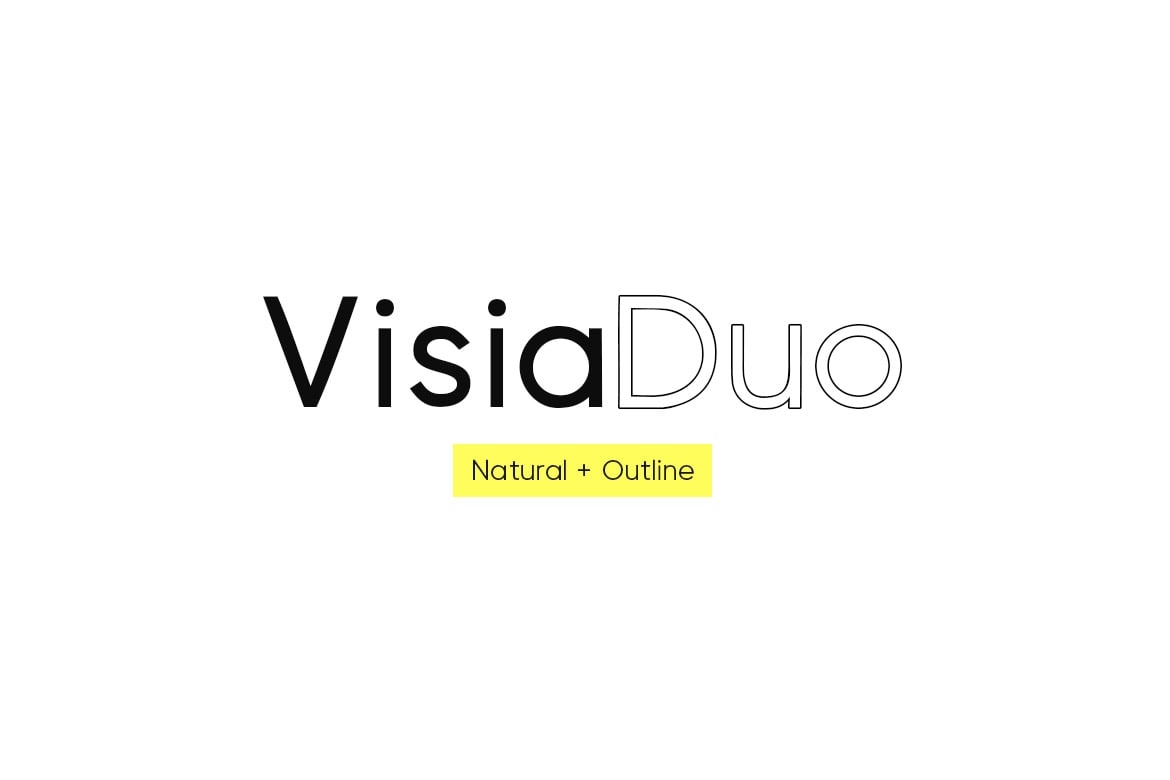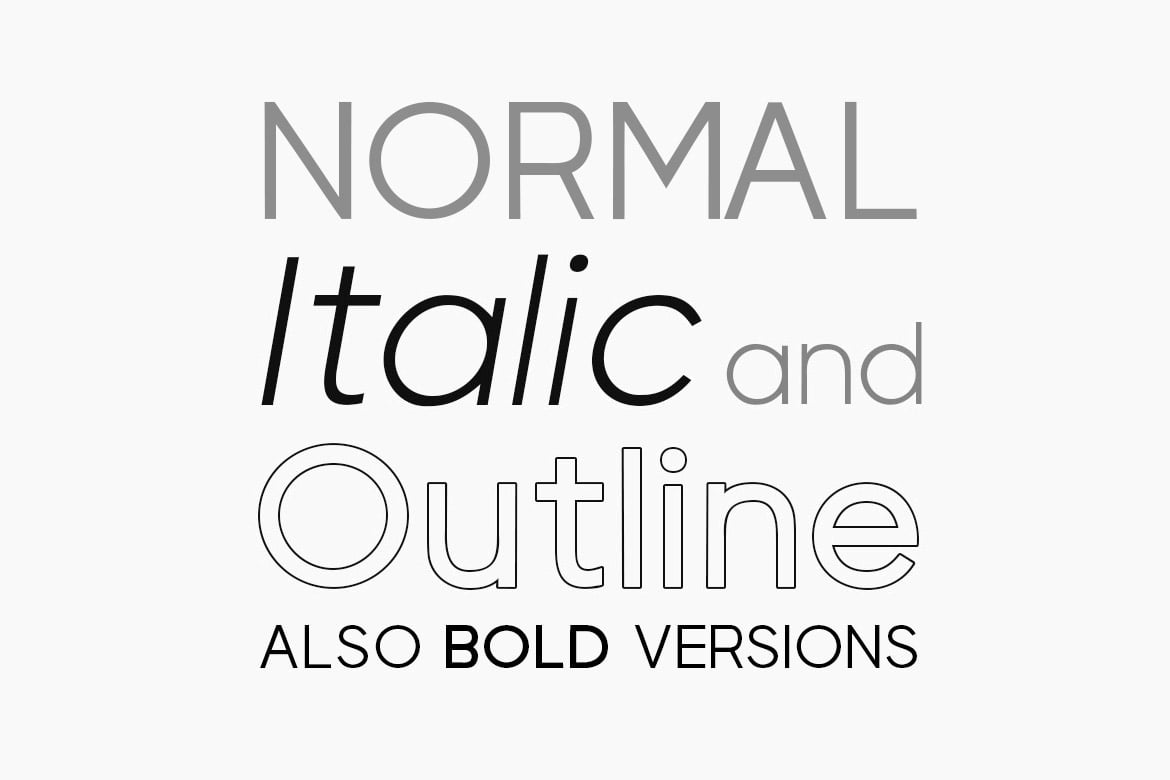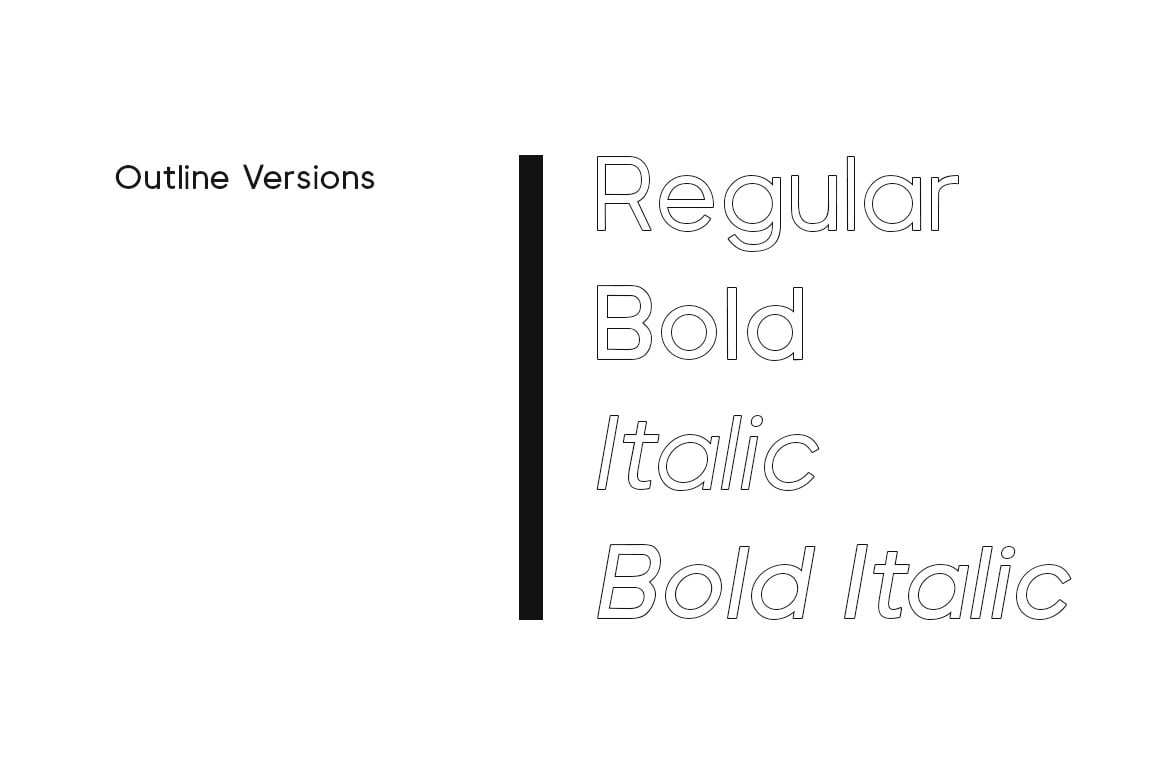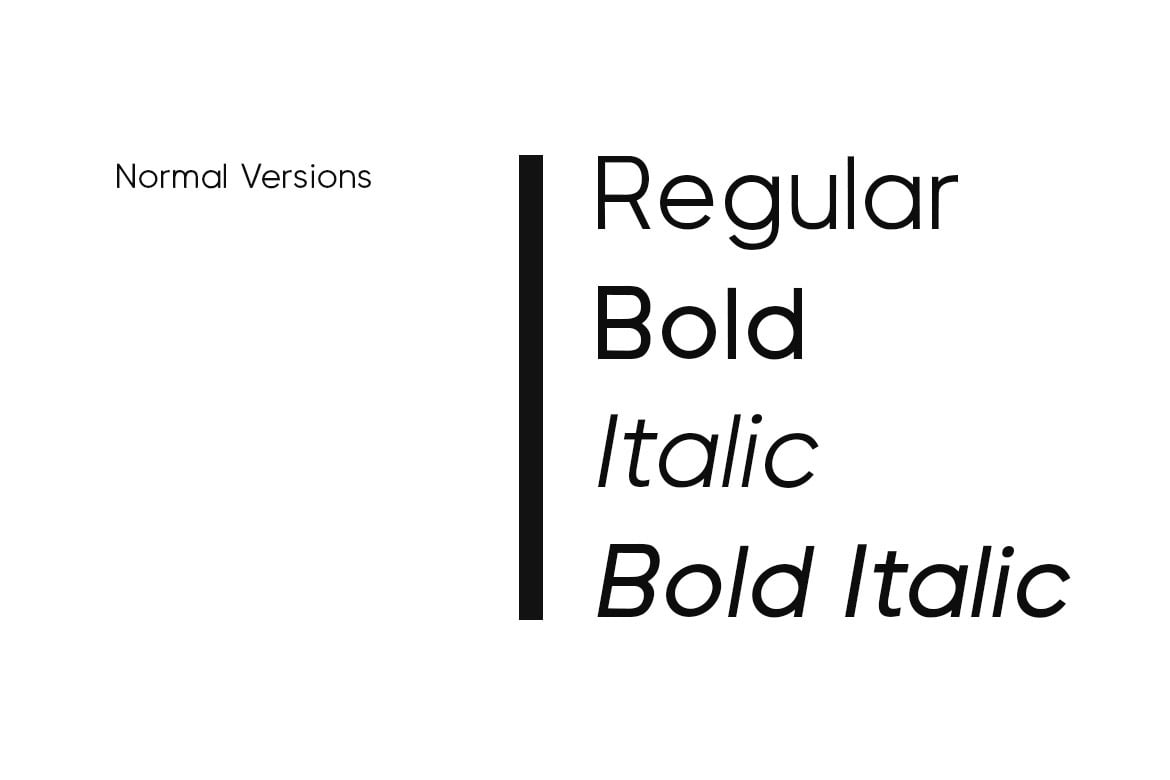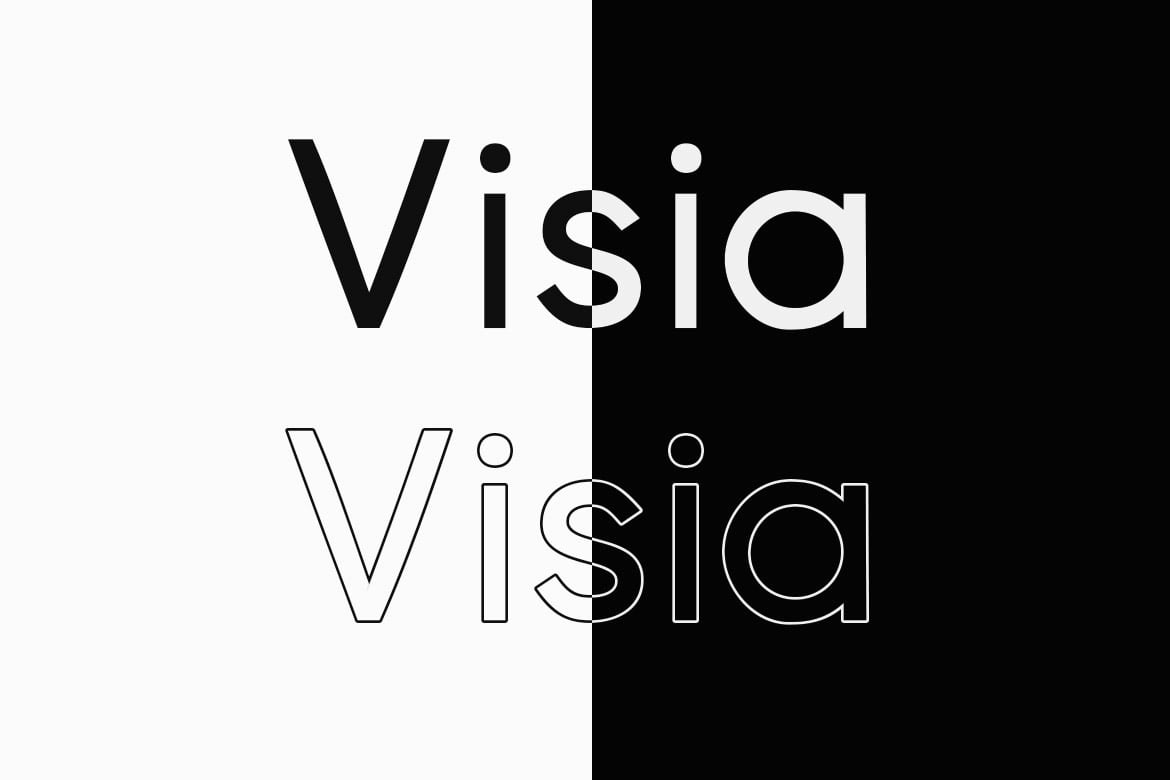
VISIA Duo (Natural & Outline) – Geometric Typeface
VISIA Duo contains Natural + Outline versions from our flagship typeface VISIA Pro (available as separate item on Envato Elements, comes with 18 fonts).
VISIA Pro is our flagship Geometric Sans-Serif typeface, a perfect blend of elegant, minimal and premium design aesthetics at it’s level best. A perfect typeface for logotypes, headlines, branding, marketing graphics, corporate identities, all web & print purposes.
This pack (VISIA Duo) comes with a total of 8 fonts:
4 Natural Variants (Regular / Bold / Italic / Bold Italic)
4 Equivalent Outline Variants (Regular Outline / Bold Outline / Italic Outline / Bold Italic Outline)